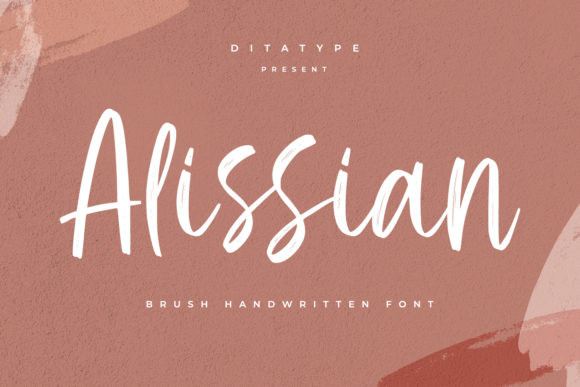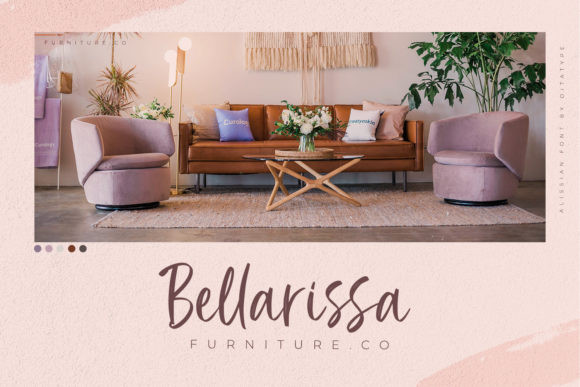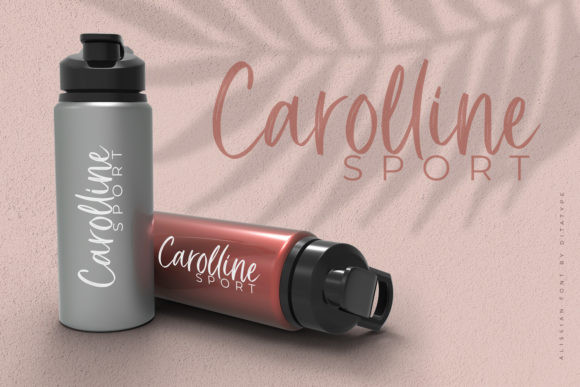
Alissian Font
Alissian is a flowing and incredibly distinct handwritten font, created with the help of a paint brush. Fall in love with this font and create spectacular designs!